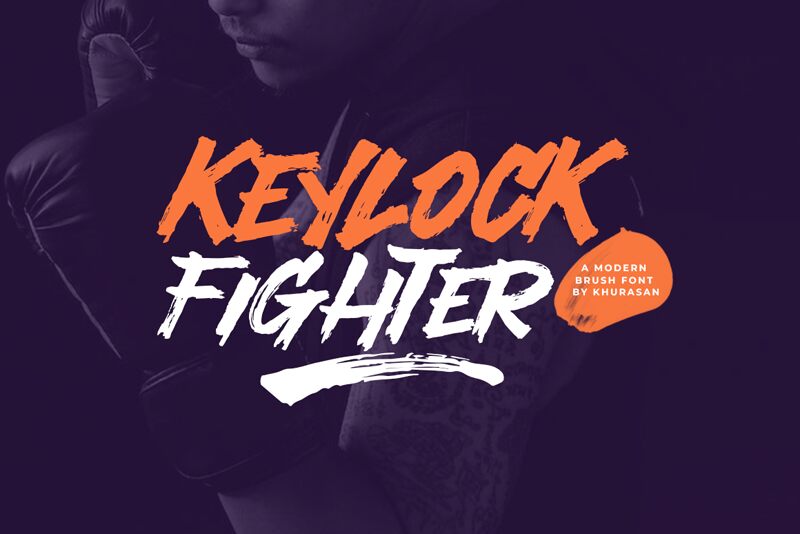
Keylock Fighter
Unlock creativity with Keylock Fighter - the semi-bold brush font designed by Khurasan. Perfect for bold, eye-catching designs, this typeface is ideal for projects that require a touch of edginess and flair. Use it on posters, flyers, and social media graphics to make your message stand out. Keylock Fighter's unique style also makes it suitable for branding projects such as logos and packaging design. Whether you're looking to make a statement or add some personality to your next project, Keylock Fighter is the perfect font choice.